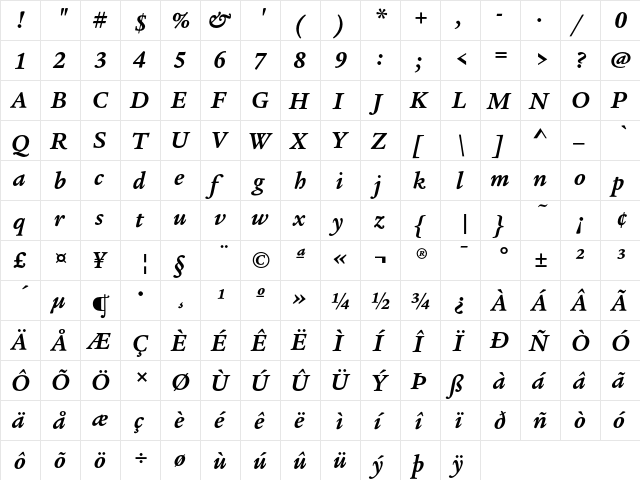
LegacySerifEF BoldItalic Font Preview
LegacySerifEF BoldItalic
Design Context for LegacySerifEF Typeface
LegacySerifEF carries the refined structure of traditional serif typography, with bracketed terminals and considered proportions that communicate credibility and craft. The slanted form adds forward momentum and visual energy. Its bold stroke weight gives it real presence on the page.
Pro Tip: Set LegacySerifEF with slightly loose tracking in headlines to let each letterform's detail read clearly at display sizes.